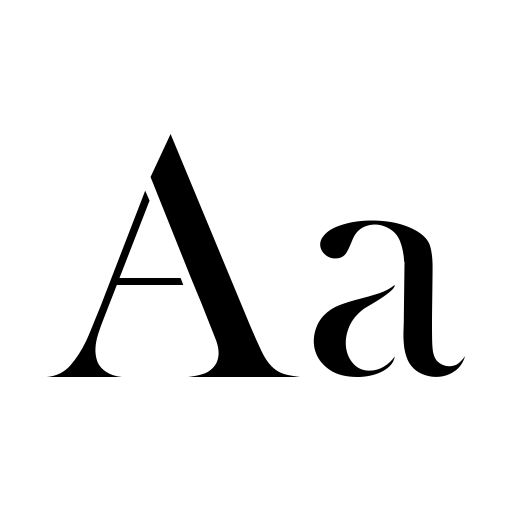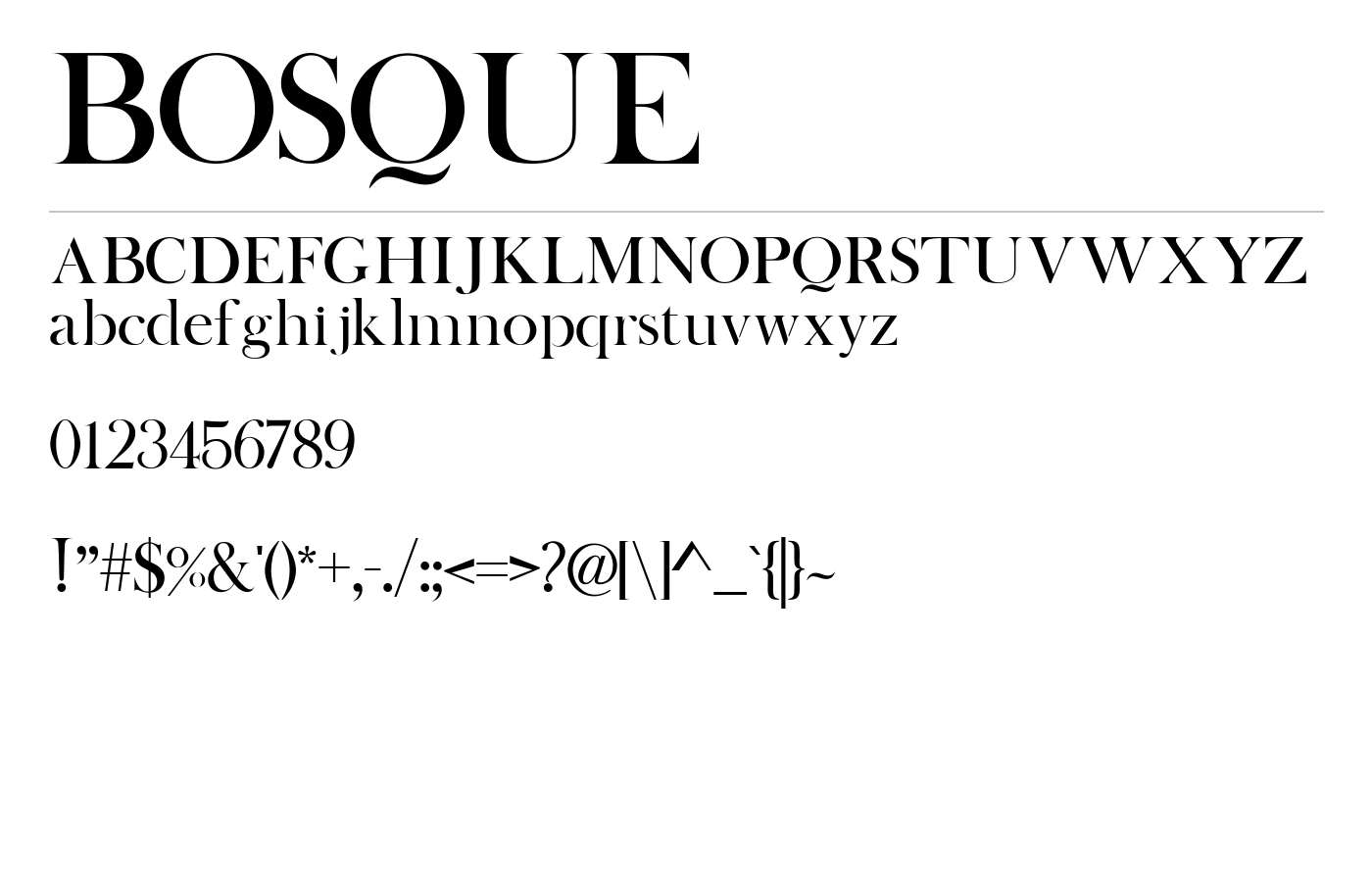
Bosque is an elegant serif font that blends sharp contrasts and delicate, bracketed serifs to create a refined and sophisticated look. Its high contrast strokes and graceful letterforms, including distinctive curves and subtle flourishes, make it perfect for upscale branding, editorial headlines, and luxury packaging where a timeless, stylish impression is desired. This font’s classic yet modern tone suits fashion, magazines, and formal invitations, delivering both readability and artistic charm.
BOSQUE Font